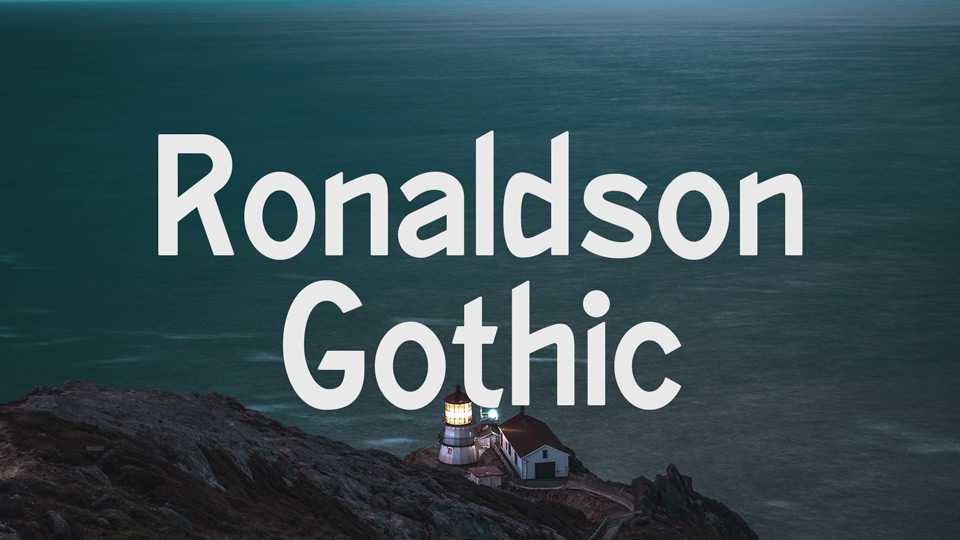
Download Ronaldson Gothic font, a sans serif typeface based on the font drawn in the 19th century. Ronaldson Gothic comes with Regular and Light version.